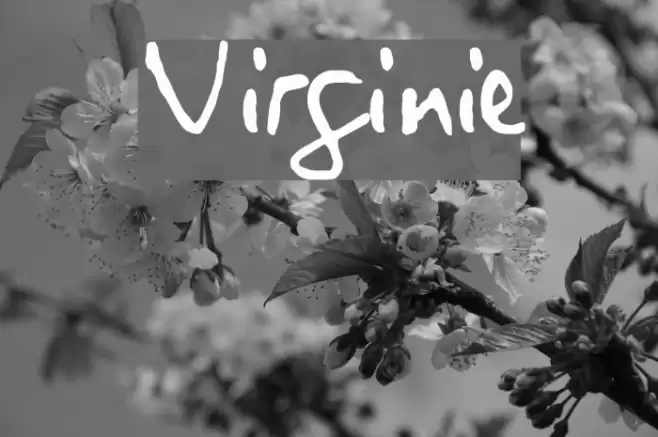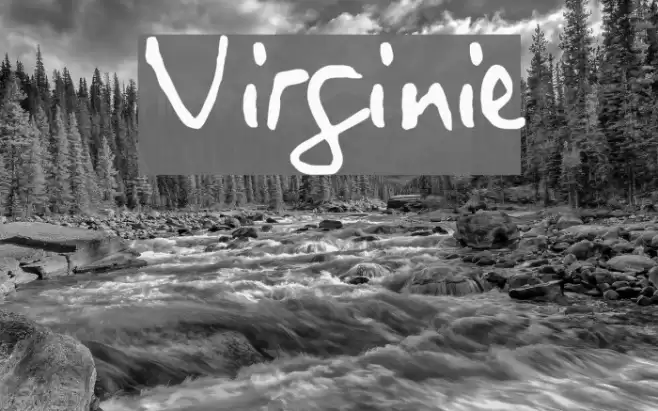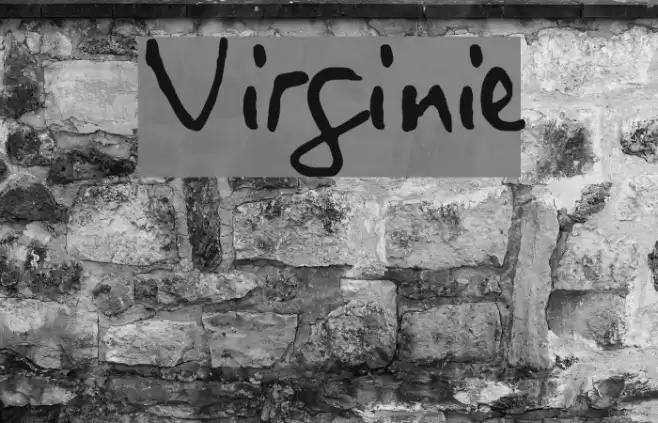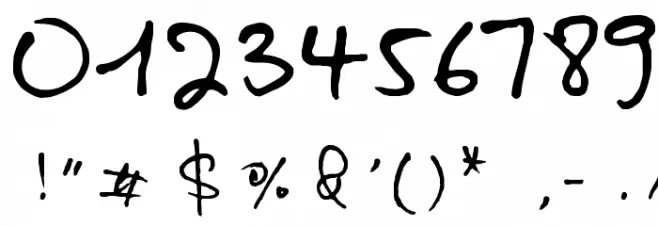
Virginie Font
Virginie Description
This font exhibits a dynamic and expressive handwritten style, characterized by its fluid and slightly irregular strokes. The uppercase letters are bold and confident, with a playful touch that adds personality. The lowercase letters maintain a consistent flow, enhancing the handwritten feel. Numbers are clear and distinct, while special characters are creatively integrated, maintaining the overall aesthetic. The font's casual and artistic nature makes it suitable for projects that require a personal and informal touch.
A dynamic handwritten font with fluid strokes and a playful character from Script fonts.
- Proposed Projects: Ideal for greeting cards, personal branding, creative posters, and informal invitations.
- Overall Style: Casual, Artistic
- Use Case: Logos, Headlines, Creative projects